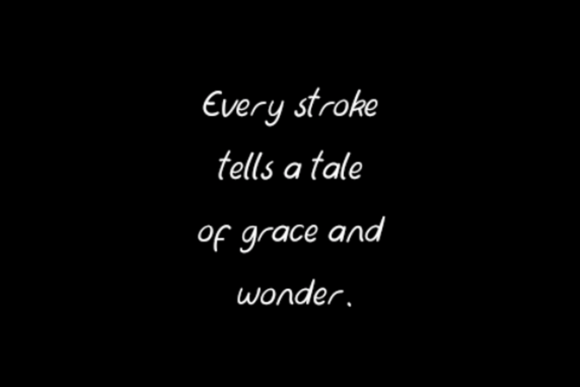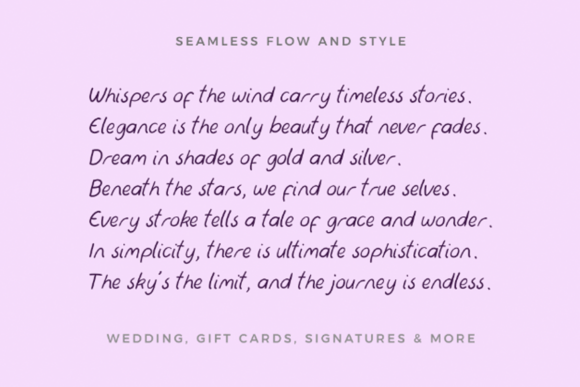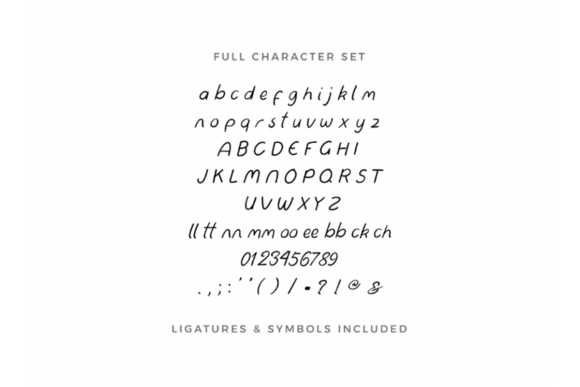
Introduction to Klaude Font
As you sit at your desk, surrounded by scattered papers and half-finished ideas, you finally find that spark of inspiration that ignites your creative project. The words begin to flow, and your imagination runs wild. But, as you start to type out your thoughts, you’re met with the harsh reality of a generic font that fails to capture the essence of your artistic vision. This is where the Klaude Font comes in – a game-changing design resource that elevates your work to new heights.
With its unique blend of structure and spontaneity, the Klaude Font is a high-quality typeface that adds a touch of cultured sophistication to any textual canvas. Whether you’re working on a freelance project or creating a masterpiece for your portfolio, this font is sure to make your work stand out. And the best part? It’s available for free download, complete with a transparent background that allows you to seamlessly integrate it into your design.
As a valuable asset for designers, the Klaude Font offers a level of creative freedom that’s hard to find elsewhere. Its poetic flow and elegant script make it the perfect choice for any project that demands a touch of refinement and sophistication. So why settle for a generic font when you can unleash the full potential of your imagination with the Klaude Font?
Key Features of Klaude Font
- High-quality design resource with a transparent background, perfect for creative projects that require a unique touch.
- Features a distinctive, modern aesthetic that sets it apart from other fonts, making it an excellent choice for designers looking to add a touch of sophistication to their work.
- Designed to be versatile and adaptable, Klaude Font can be used for a wide range of creative projects, from branding and marketing materials to digital art and graphics.
- Includes a comprehensive character set, covering a wide range of languages and characters, making it an excellent choice for designers working on international projects.
Honest Review: Klaude Font
I recently stumbled upon the Klaude Font and I must say, it’s a great addition to my design resources. The high quality of the font is immediately noticeable, and it’s perfect for creative projects where you need a sophisticated and elegant look.
Here are some things that I think work well:
- ✨ High quality design: The font is well-crafted and looks great on various backgrounds, including transparent backgrounds.
- ✨ Versatile: The font is suitable for a wide range of creative projects, from branding and advertising to editorial and publishing.
- ⚠️ Limited customization options: While the font looks great, I wish there were more customization options available, such as bold and italic styles.
- ⚠️ Not suitable for all fonts: Some designers may find the font too elegant or sophisticated for their taste, and may prefer a more modern or playful font.
Overall, I’m impressed with the Klaude Font and would definitely recommend it to designers looking for a high-quality, elegant font for their creative projects.
Tips for Getting the Most Out of Klaude Font
Use Klaude Font in combination with other design elements to create a unique and stylish look. Experiment with different font sizes and colors to achieve the desired effect.